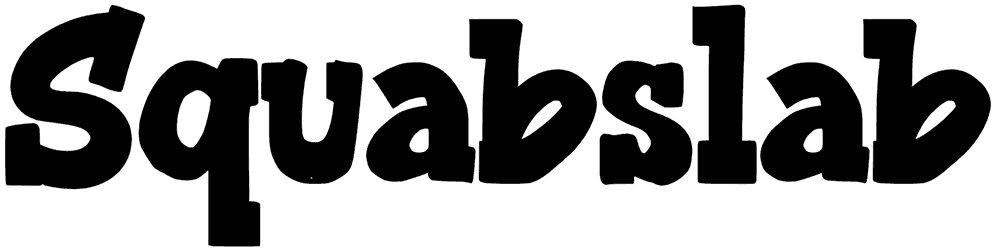
Squabslab Font
Make your audience happy and impressed with a funny and energetic design. As a 90s cartoon font, Squabslab represents a bulky and untidy letter style that can be a cute showcase for various happy projects. Set this fancy on your creative designs, for example, covers, packaging, planners, or the like, and give them a lovely vibe.